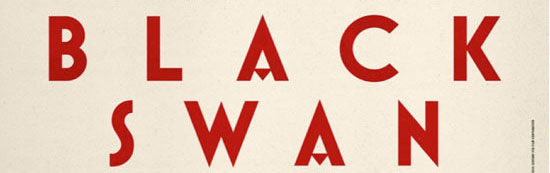
In the Black Swan movie poster the main headline type is at the bottom of the page. The red typeface goes well with the elegant and mysterious poster for the movie. The anatomy of the typeface has an even baseline with wide spaced out lettering in between each letter form. The x-height in this typeface is the same as the cap height because all of the letters are upper case. The set width is not proportionate to the cap height. The long slender upper case letters ad a sense of cleanness. There are no serifs and this makes the font more geometric. In the c the bowl of the curve is so deep and proportionately curved like a circle it adds depth. All of the bowls are not the same which makes the font more dynamic and have smooth contrasts between letters. The ligature of the A’s are pointed and have sharp crisp points with the cross bars as small triangles rather than straight across bars. Along with the pointed ligatures, the bottom points of the W and the points on the N are pointed just like the A. In the S in swan the S’s spine is very slightly curved showing gradual movement. With all of the anatomy in the Black Swan typeface it shows that the typeface is correct for the content. This movie poster is minimalistic and representational of the movie it is displaying and it fits with the content and feeling of the story. The movie is an intense ballet story representing a ballerina who is supposed to be a black swan which represents sensuality and slyness. This remake of a movie poster uses the correct font representing slyness with the large spaces in between the letters and the sharp points.